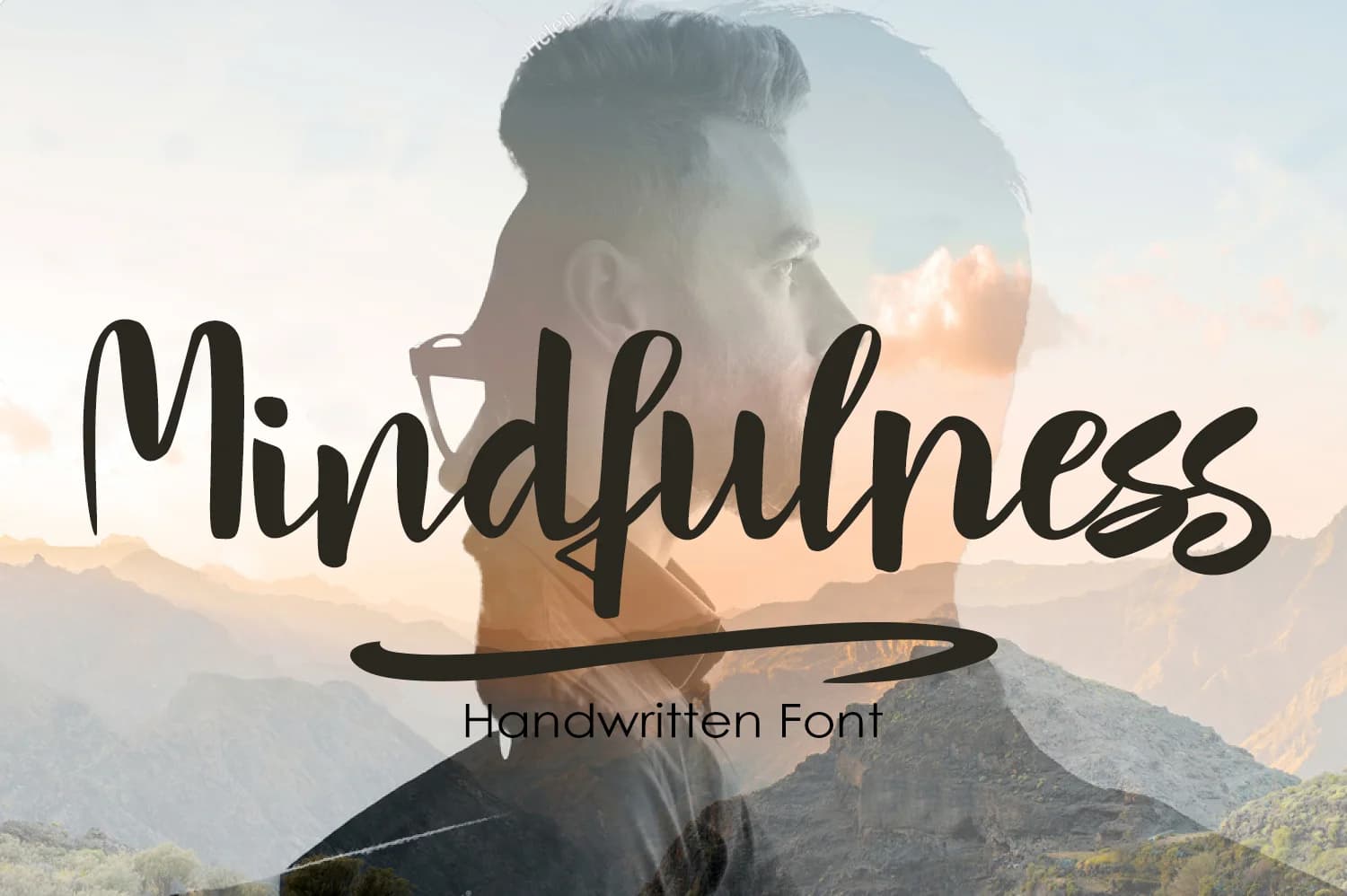
1 / 9About Mindfulness Font
Mindfulness Font by tregubova.jul is a flowing script with carefully drawn letterforms that capture the essence of intentional, mindful design. Each character reflects meticulous attention to detail, featuring soft curves and organic proportions that feel both contemporary and deeply personal. The typeface's thoughtful construction makes it ideal for any project where authentic, handwritten expression truly matters.
This refined script excels in creating custom lettering for wedding invitation suites, personalized greeting cards, mindfulness journal covers, and artisanal product packaging. The extensive collection of decorative alternates and complementary swashes allows for seemingly endless creative variation, enabling you to craft truly one-of-a-kind designs without feeling constrained by repetitive letterforms. Whether you're designing hand-lettered signage for a boutique wellness brand, building sophisticated stationery for a luxury service, or developing custom packaging for handmade goods, the interchangeable letter options and flourishes provide significant design flexibility.
The refined letterforms and careful attention to calligraphic detail make Mindfulness an excellent choice for designers seeking authentic script that transcends standard handwritten fonts. This typeface carries the warmth and intentionality that clients recognize when custom lettering is involved. Discover Mindfulness Font on Creative Fabrica to bring beautifully personalized typography to your next project.
Mindfulness Font is a script font that shines as a display or heading face. Pair it with a clean sans-serif or serif font for body text β the contrast creates a clear hierarchy while the two styles stay balanced and easy to read.